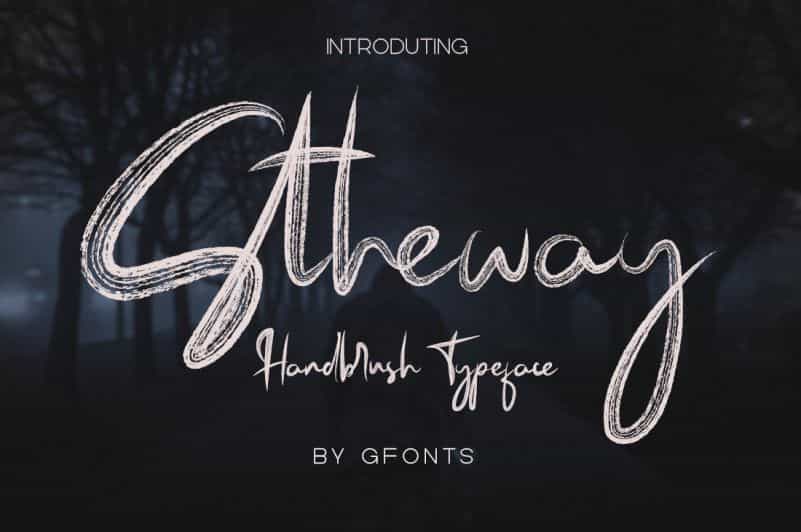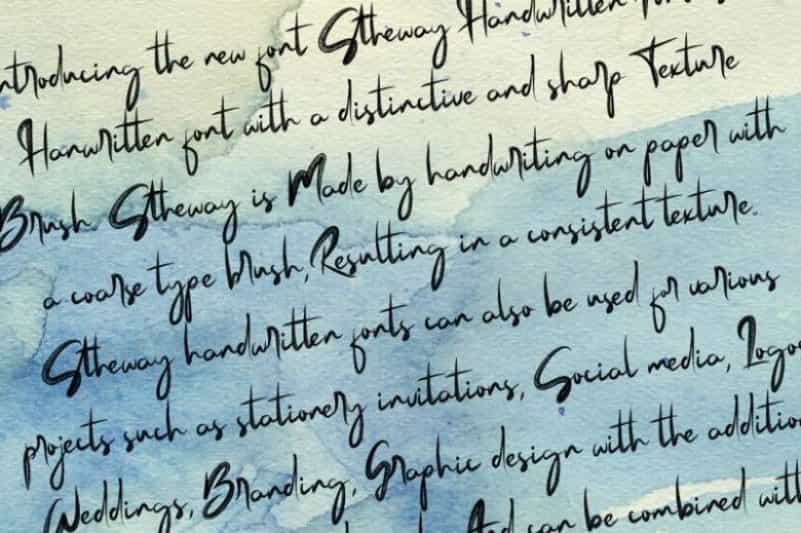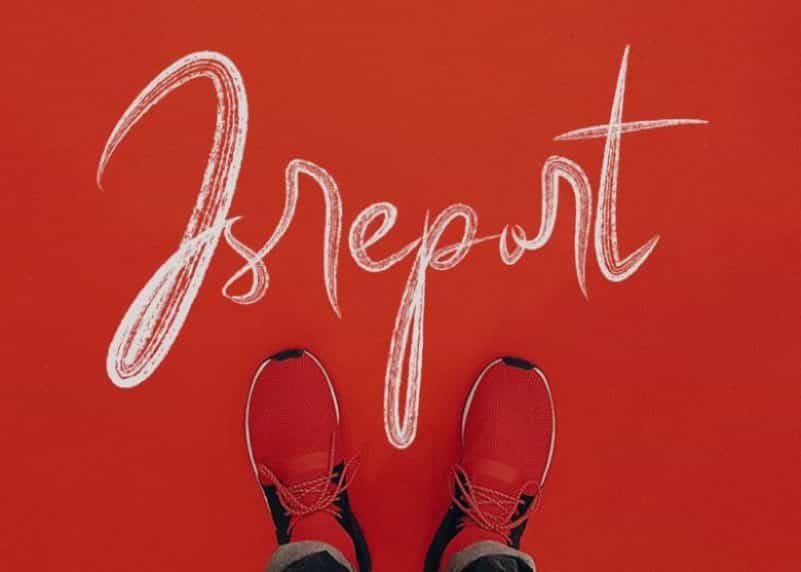
Presenting the new font Stheway Handwritten Font, which has a smooth but sharp looking Texture Brush. The way is written on paper by hand with a rough type of brush, This makes it have a rough surface all through.